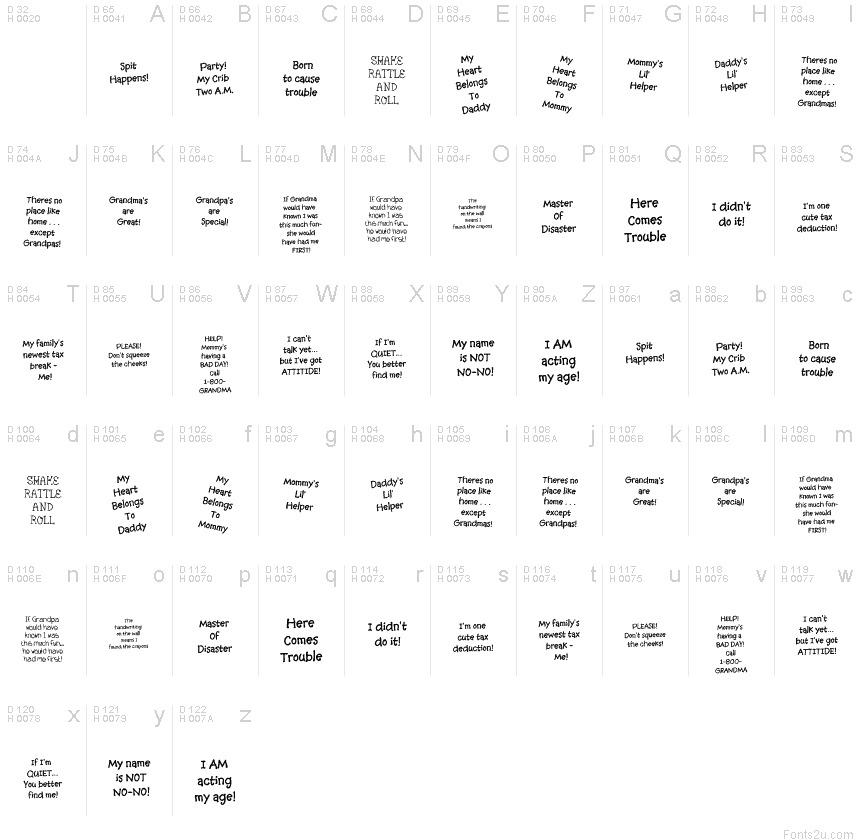
KR Babiez
KR Babiez font by Katsfunfonts is a free playful dingbat typeface that captures the messy, giggly chaos of life with little ones. Each mark feels like it’s been scribbled in thick marker-bouncy, uneven, and full of attitude, from sleepy late-night vibes to cheeky “not my fault” energy. The spacing is loose and airy, giving your layouts that carefree, fridge-art charm without feeling cluttered.
Using KR Babiez, you can add instant personality to baby shower invitations, birth announcements, scrapbooking pages, nursery prints, party banners, and kids’ social posts. This free font works beautifully when you let the dingbats take center stage at larger sizes, then pair them with a simple rounded sans-serif for names, dates, or supporting text.